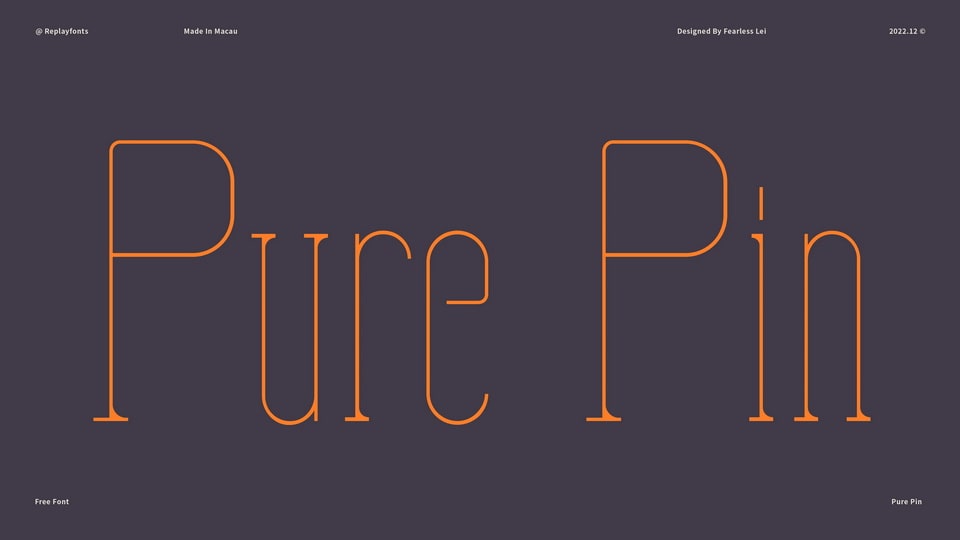
Download Pure Pin font, a thin and experimental typeface with narrow proportions and light weight. Pure Pin is a trendy, elegant and modern style font.
Designer: Fearless Lei